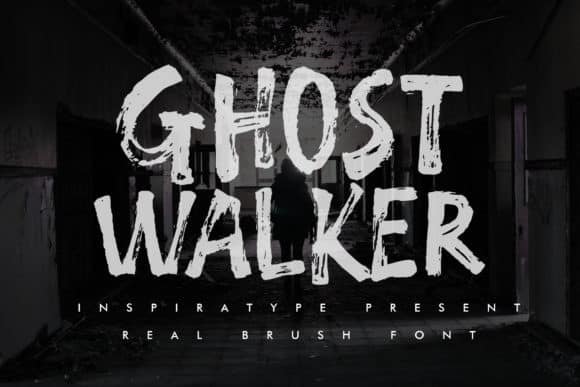
Ghost Walker Brush Font
Ghost Walker Brush Font is a handwritten brush font with a spooky feel. This font is suitable for spooky, gripping, and terrifying themes. Made from font designer named InspiraType. Masterfully designed to become a true favorite, this font has the potential to bring each of your creative ideas to the highest level!
Fall in love with its quirky style and use it to create beautiful stationary art, eye-catching social media posts, and much more!